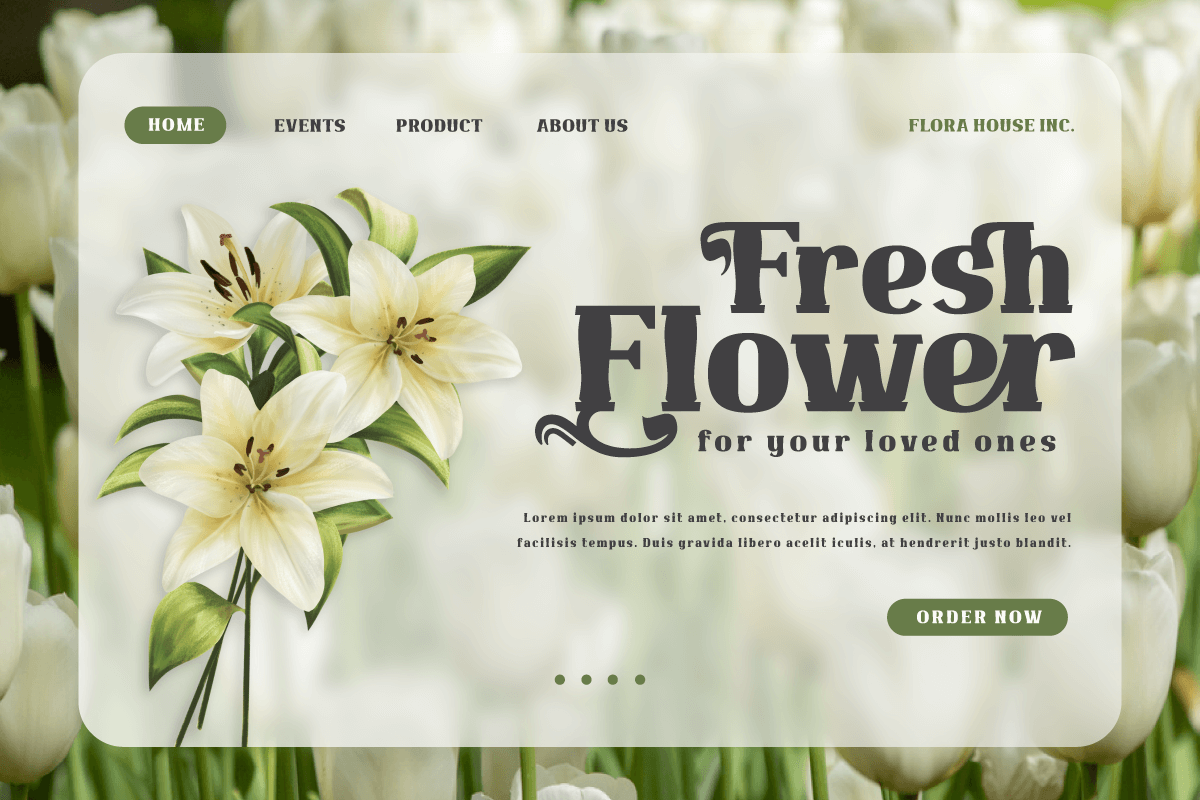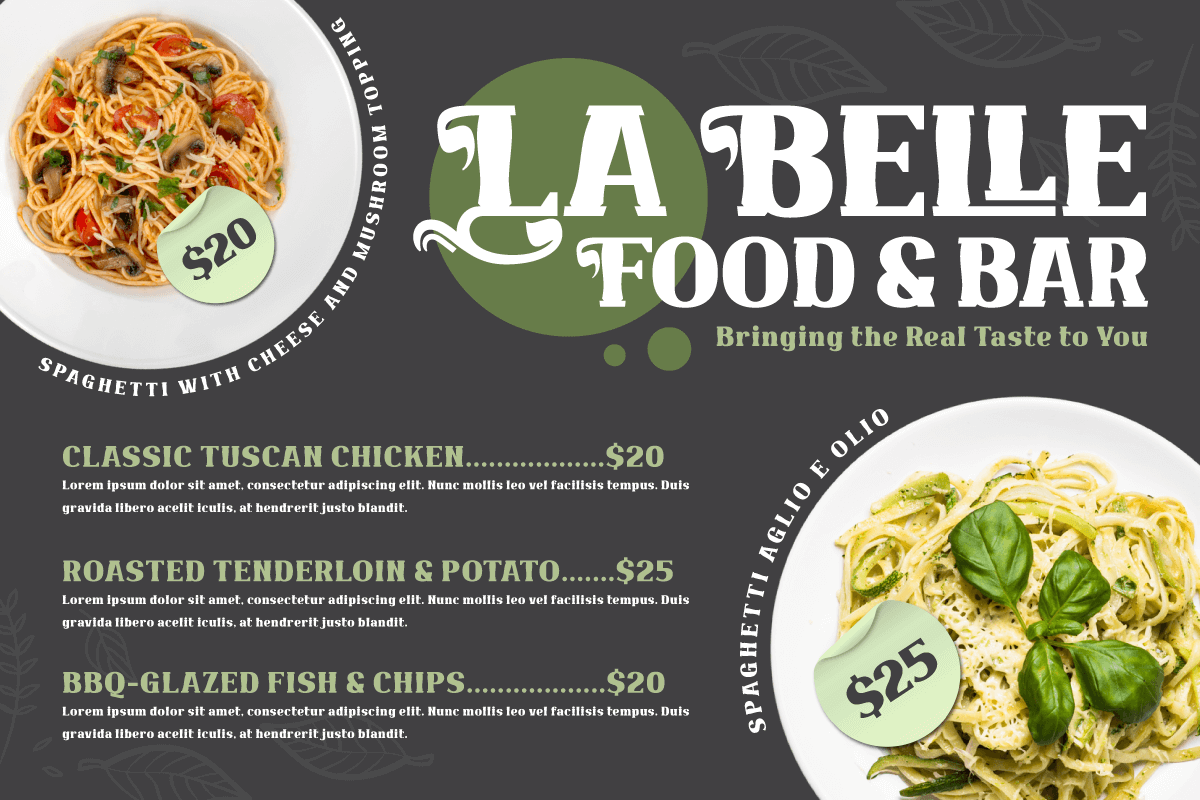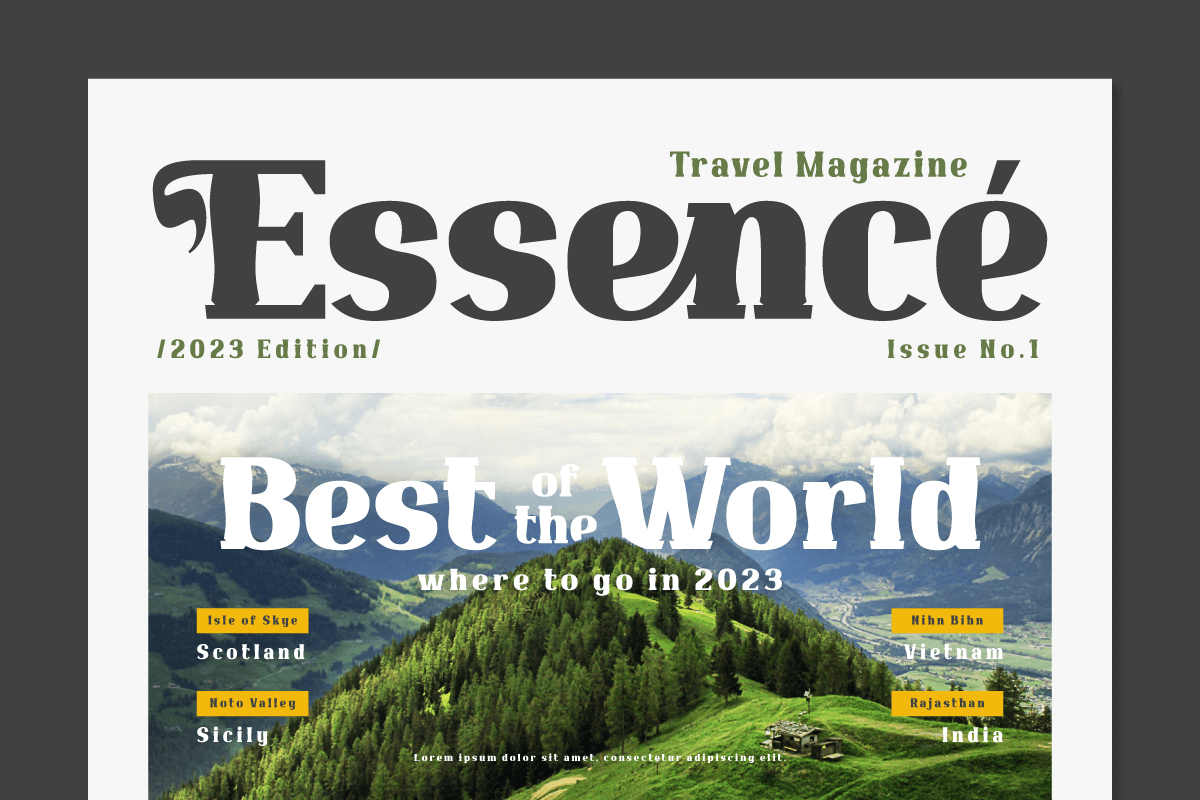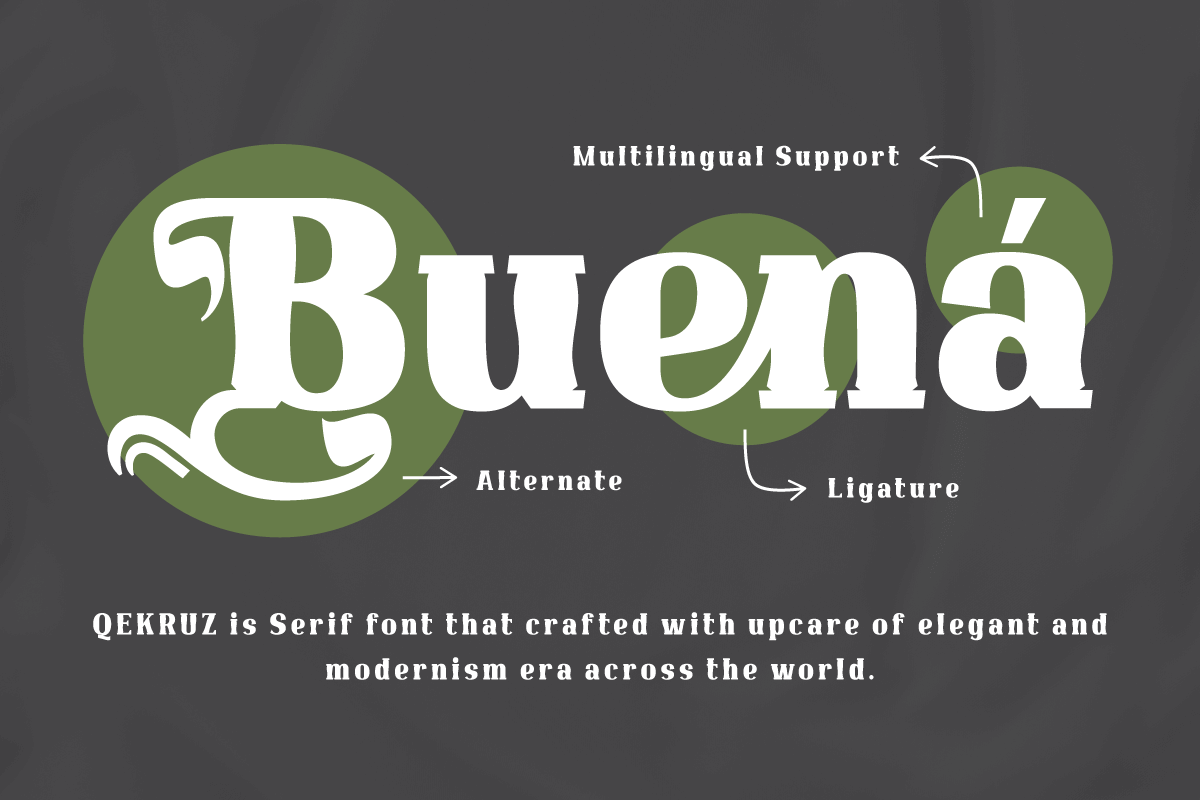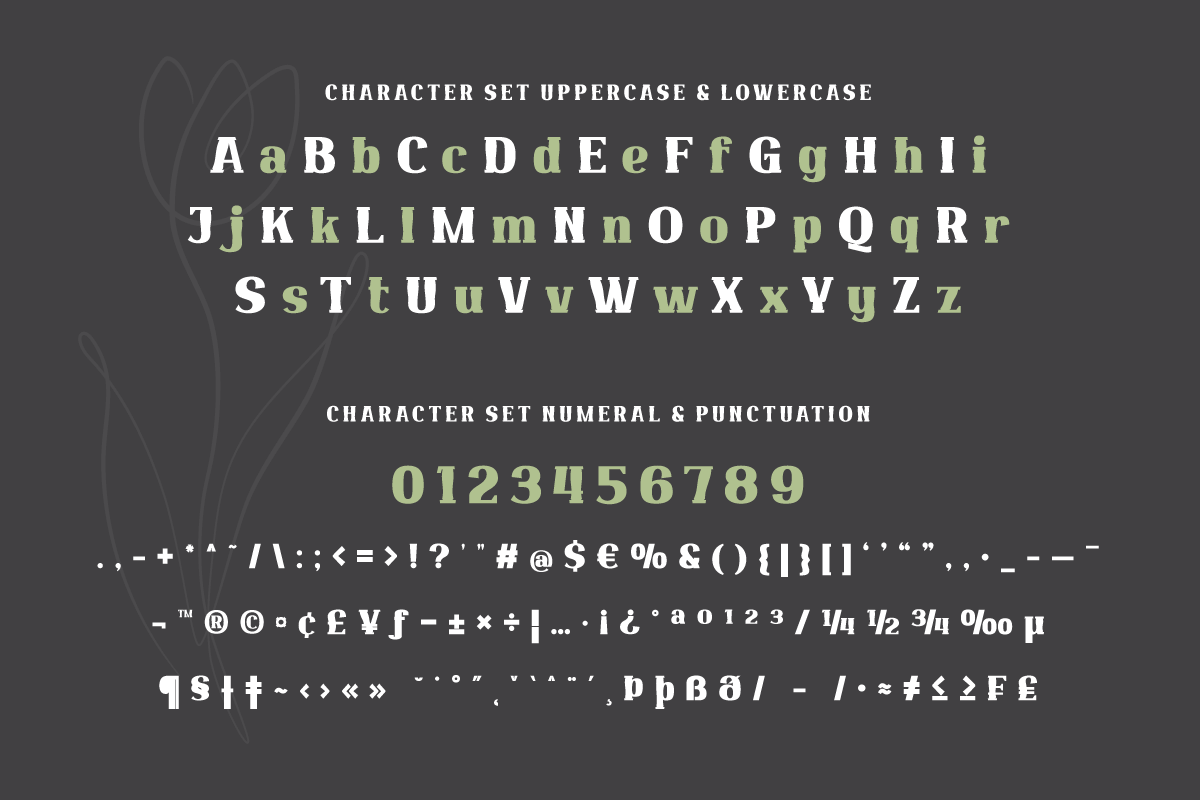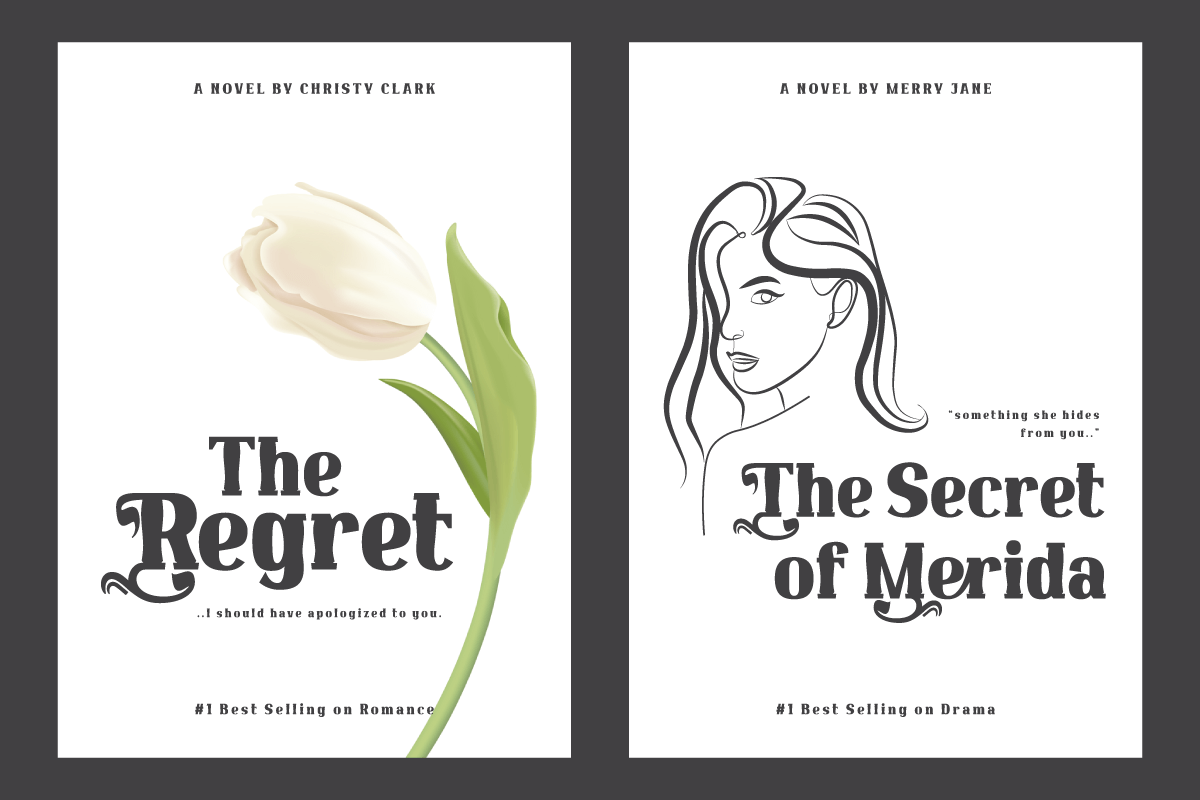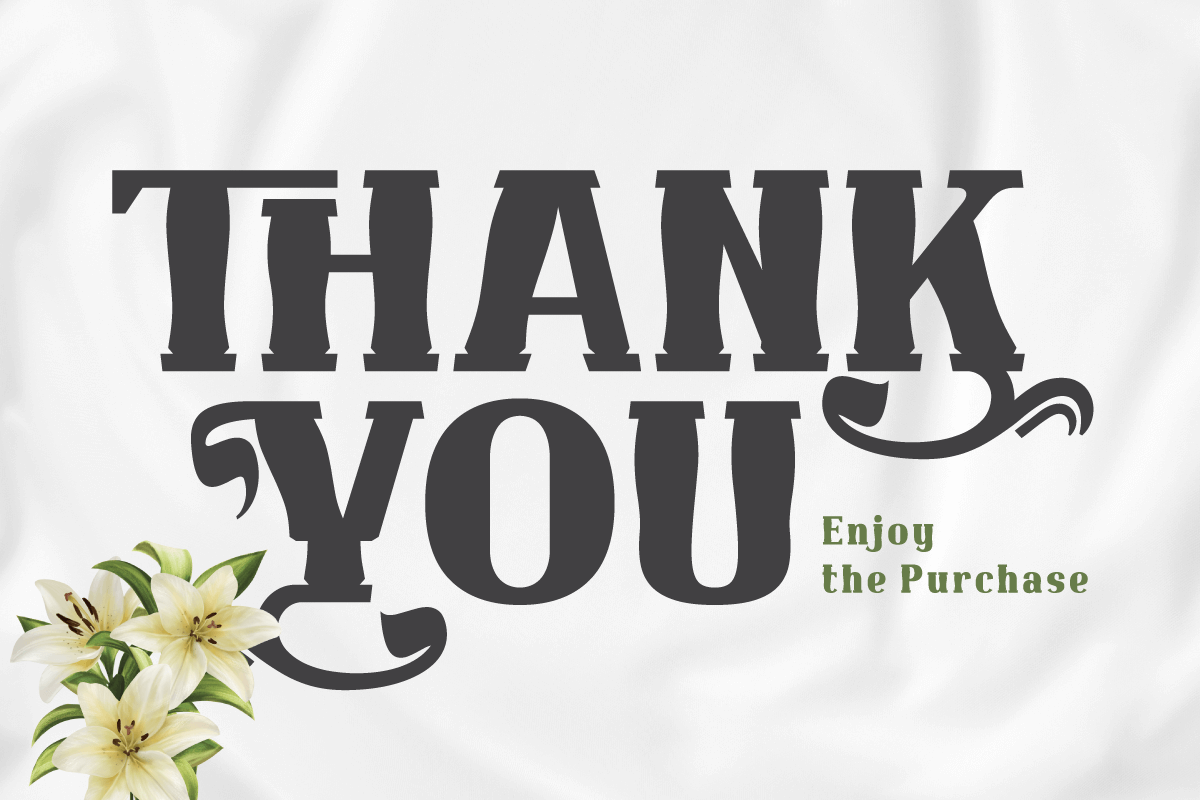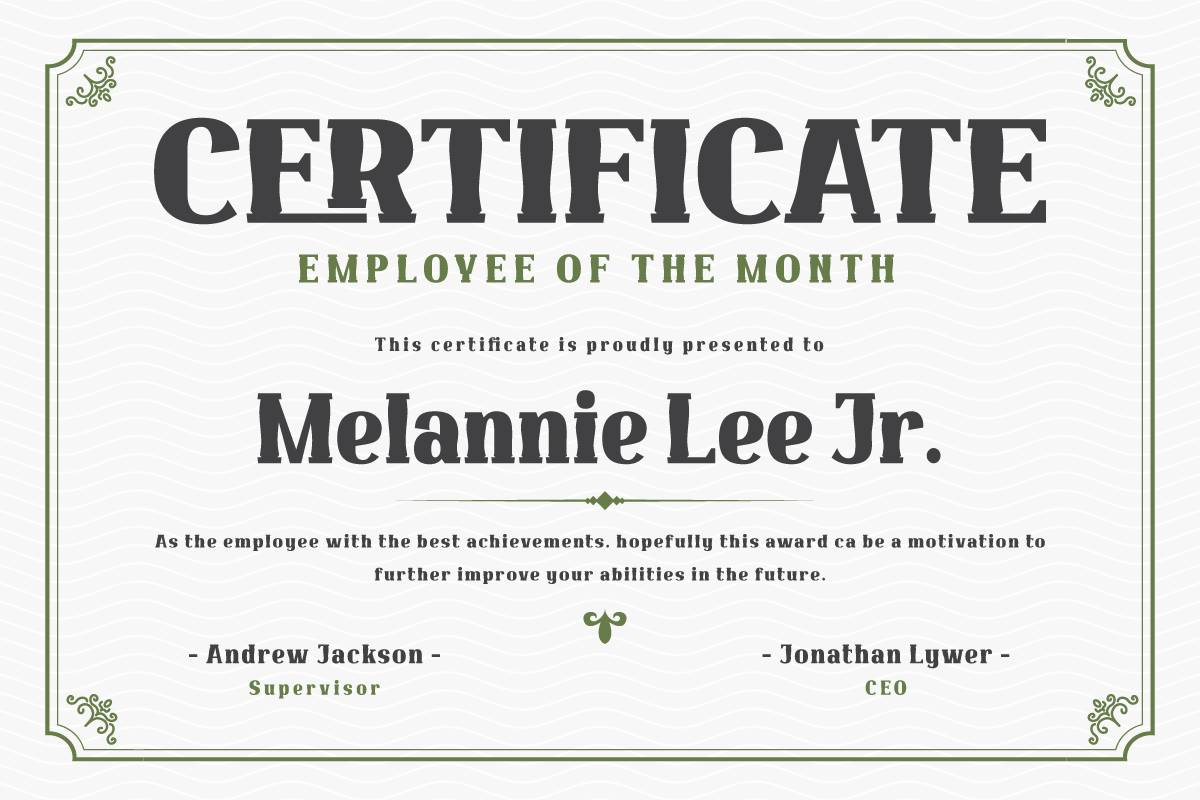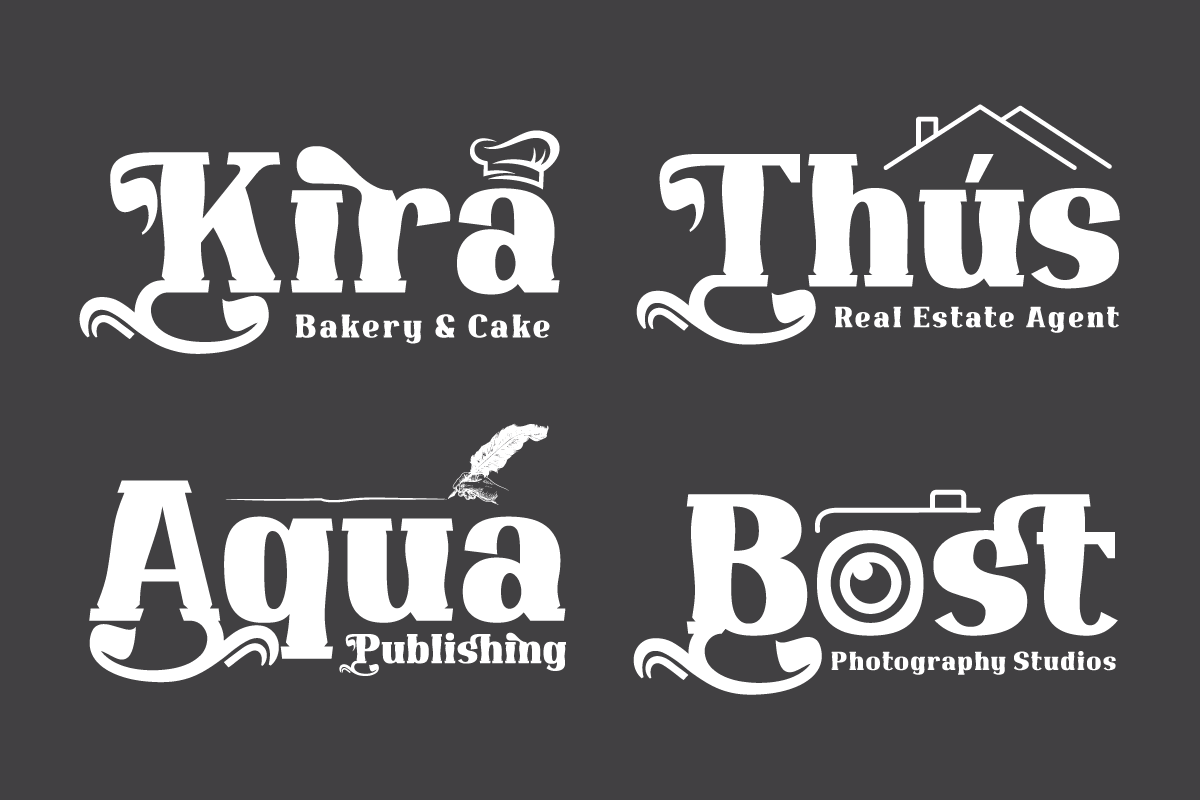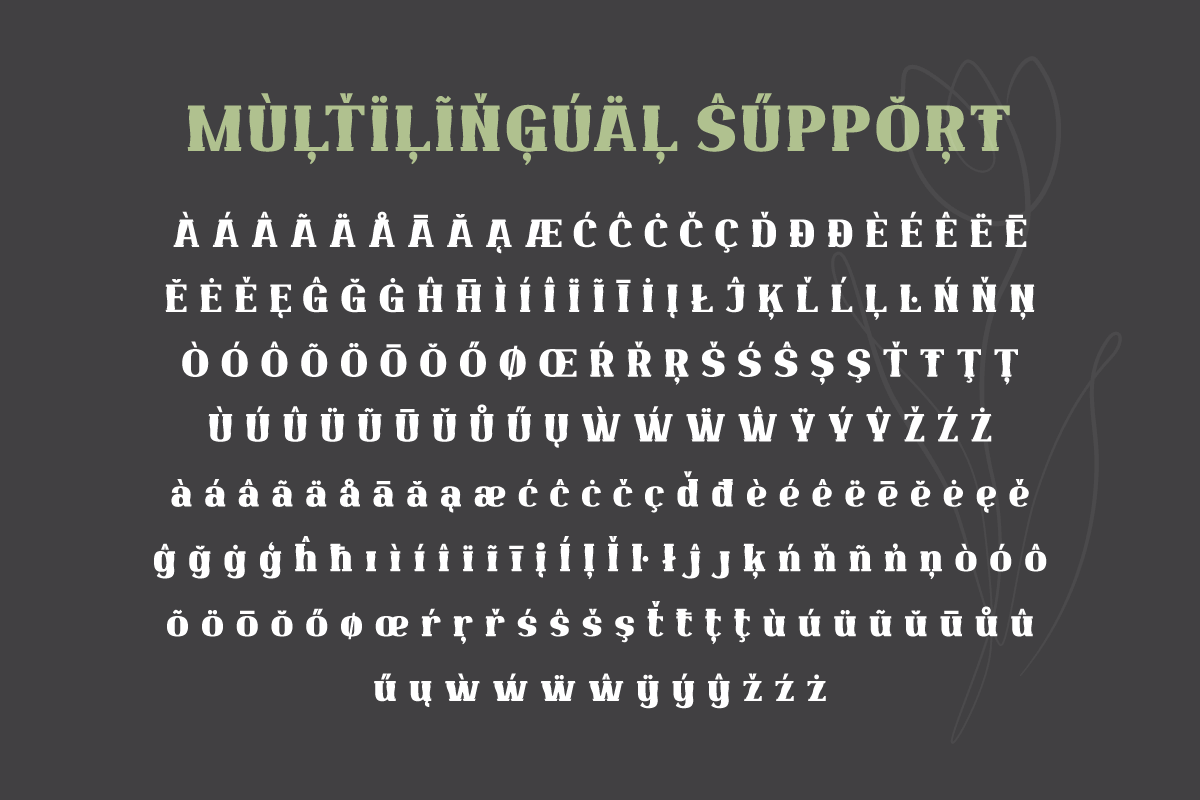
Qekruz | Serif Classic Modernism
Qekruz is the perfect reflection of modernism’s classic elegance in a stunning serif font. With this theme, this font is an excellent solution for any kind of project that requires an elegant touch of classic modernism.
With Qekruz, you bring new life to your typography. Each letter carries the signature charm of classic modernism, combining the beauty of the past with the practicality of modern design.
Not only does it have an impressive visual appearance, Qekruz also offers attractive features. Existing ligatures and alternates provide extraordinary flexibility in assembling unique and interesting typographical compositions.
Supporting multilingualism, Qekruz ensures that your message reaches various languages and cultures. With a rich and versatile character, this font is an invaluable asset in any project.
Make Qekruz your loyal partner in creating visual masterpieces that captivate the heart and eyes. With its combination of elegant classic modernism and cutting-edge features, this font will take your designs to the pinnacle of excellence. Immediately have Qekruz present the beauty of classic modernism in each of your typography!
- Alternate, Ligature